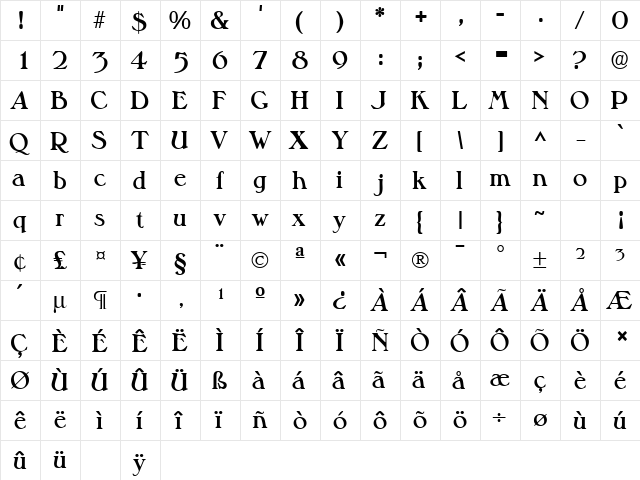
ValitBlackSSK Regular
Design Context for ValitBlackSSK Typeface
ValitBlackSSK takes a measured approach to typography — its balanced proportions and neutral character make it a reliable workhorse for both digital and print work.